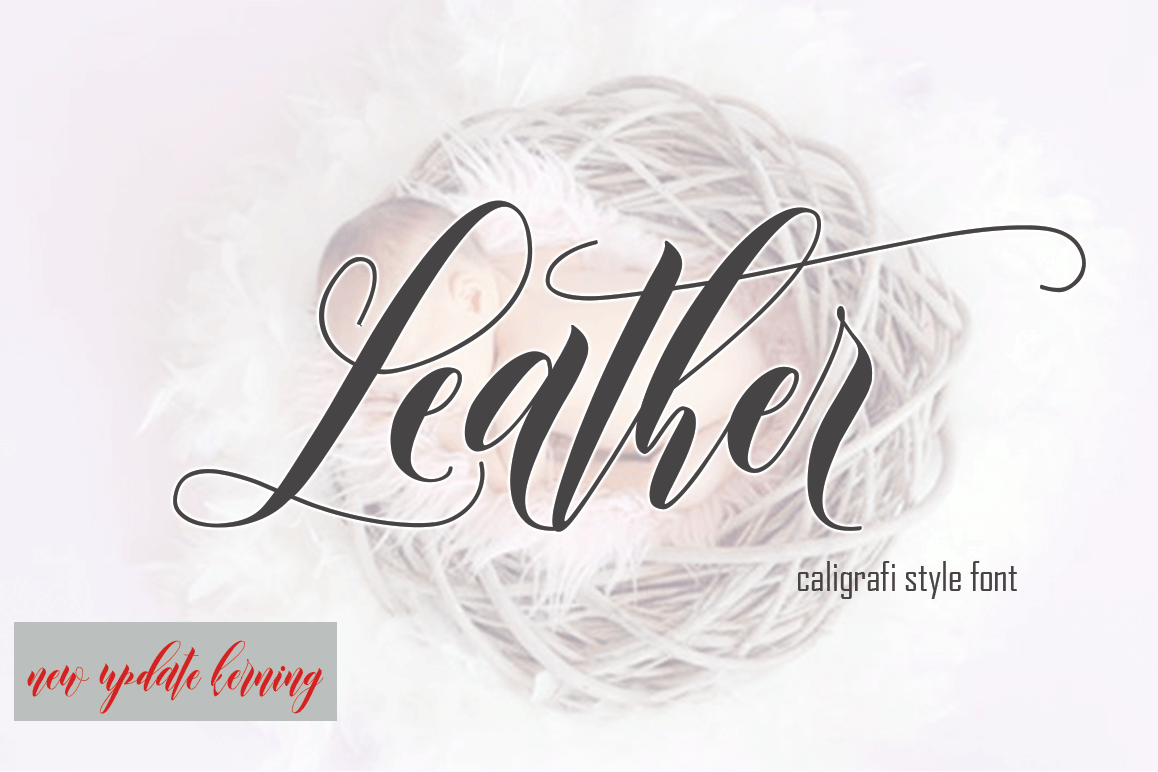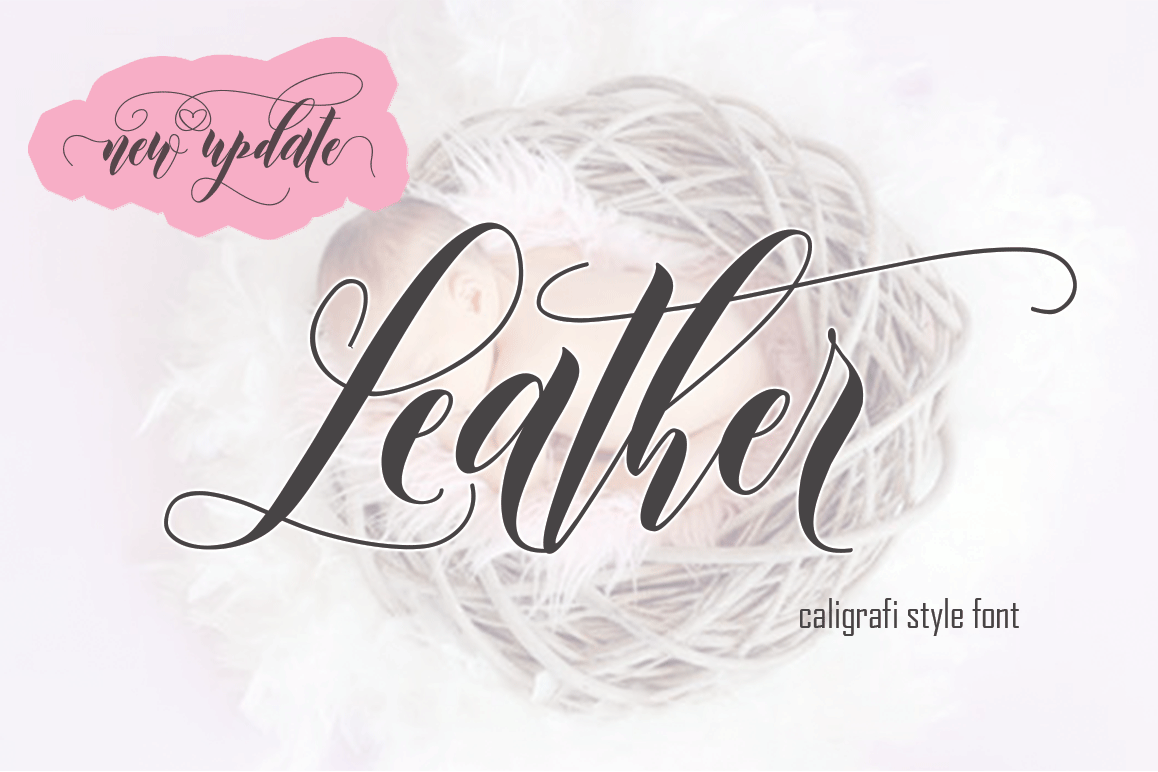
Leather
leather update
nice font wist nice alternatif for solve you work.
Leather font is script font wish nice alternatif so will be elegan and moderent font for any needed to solve you work.Include :